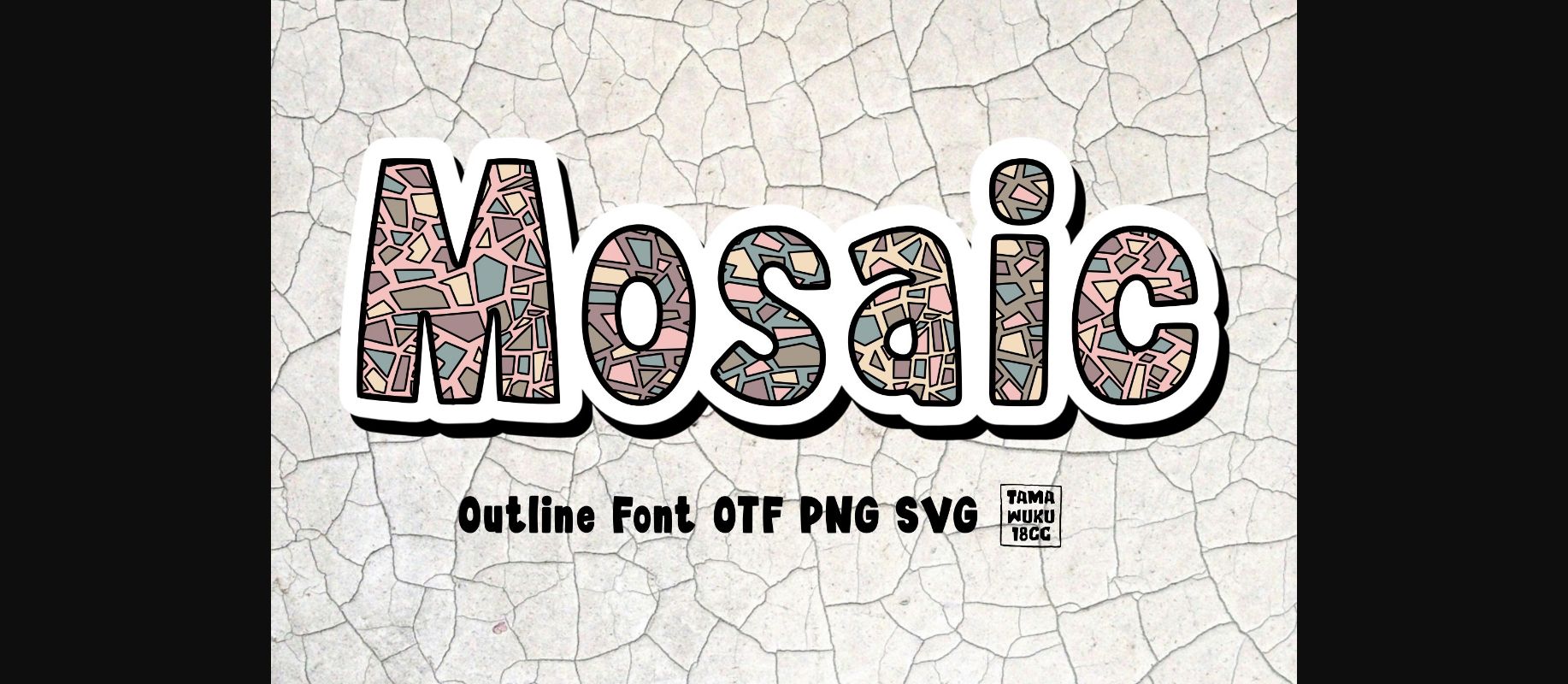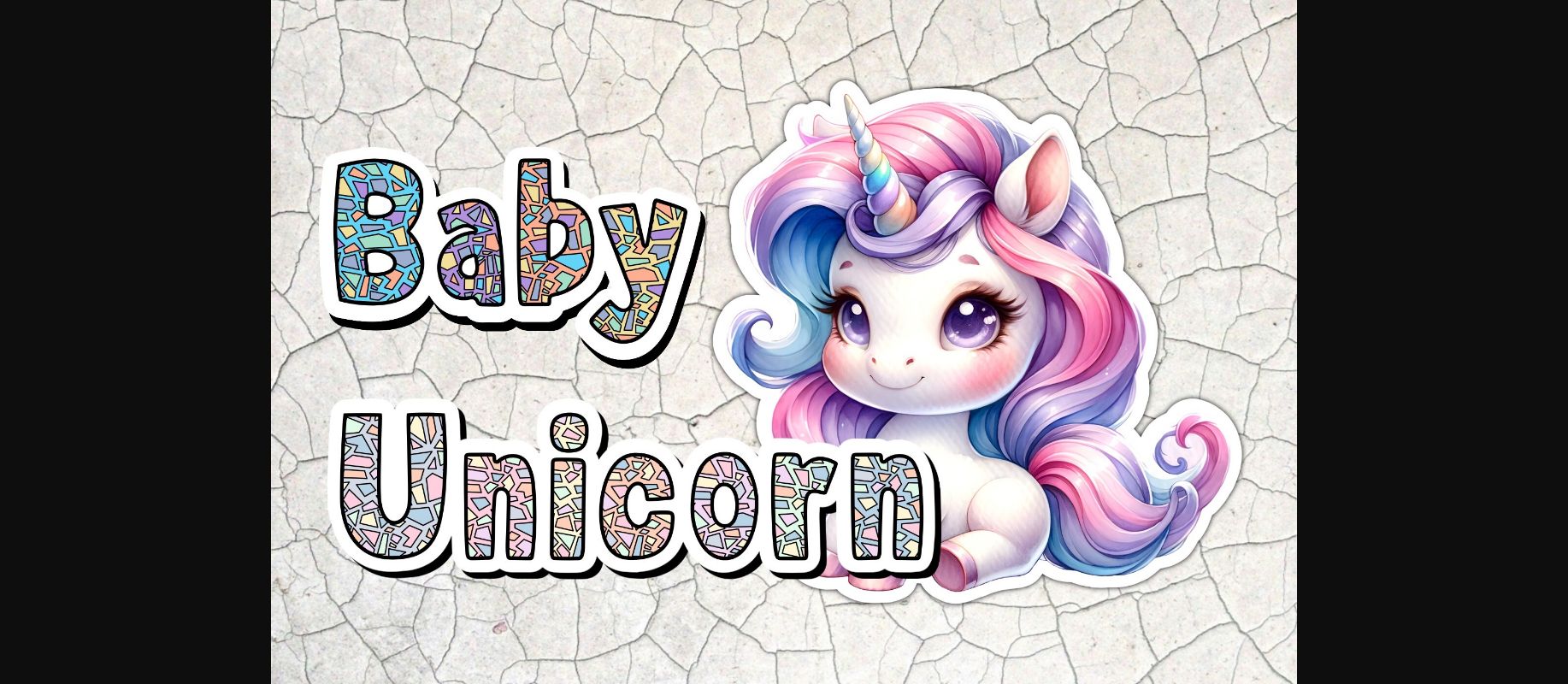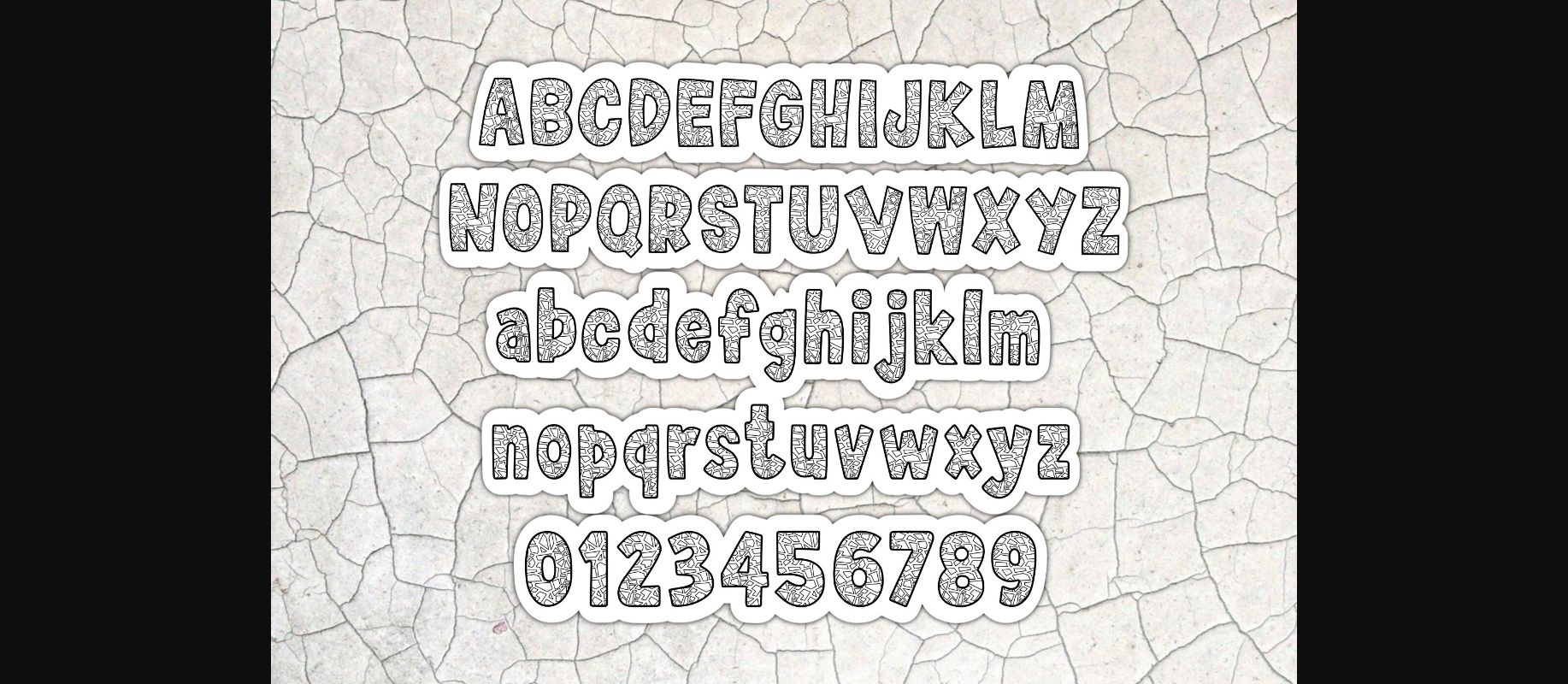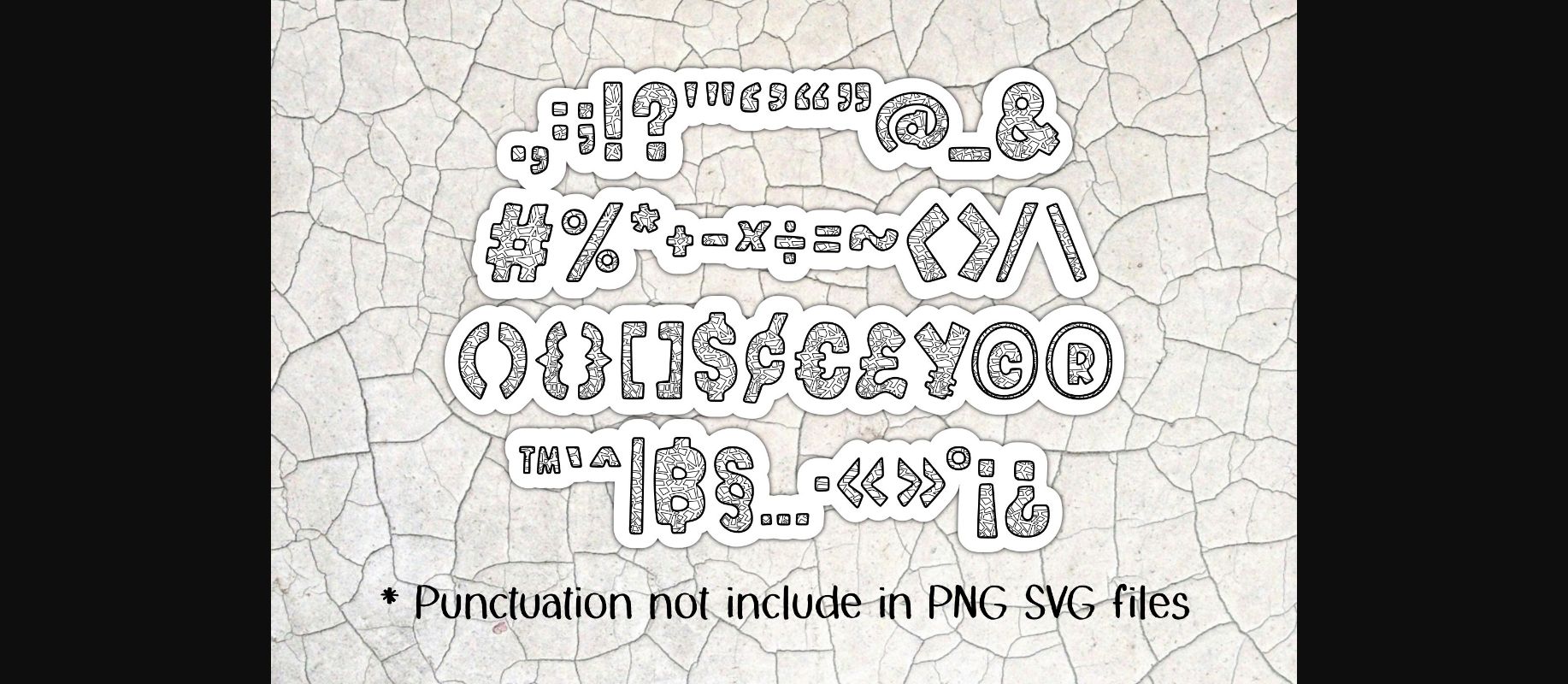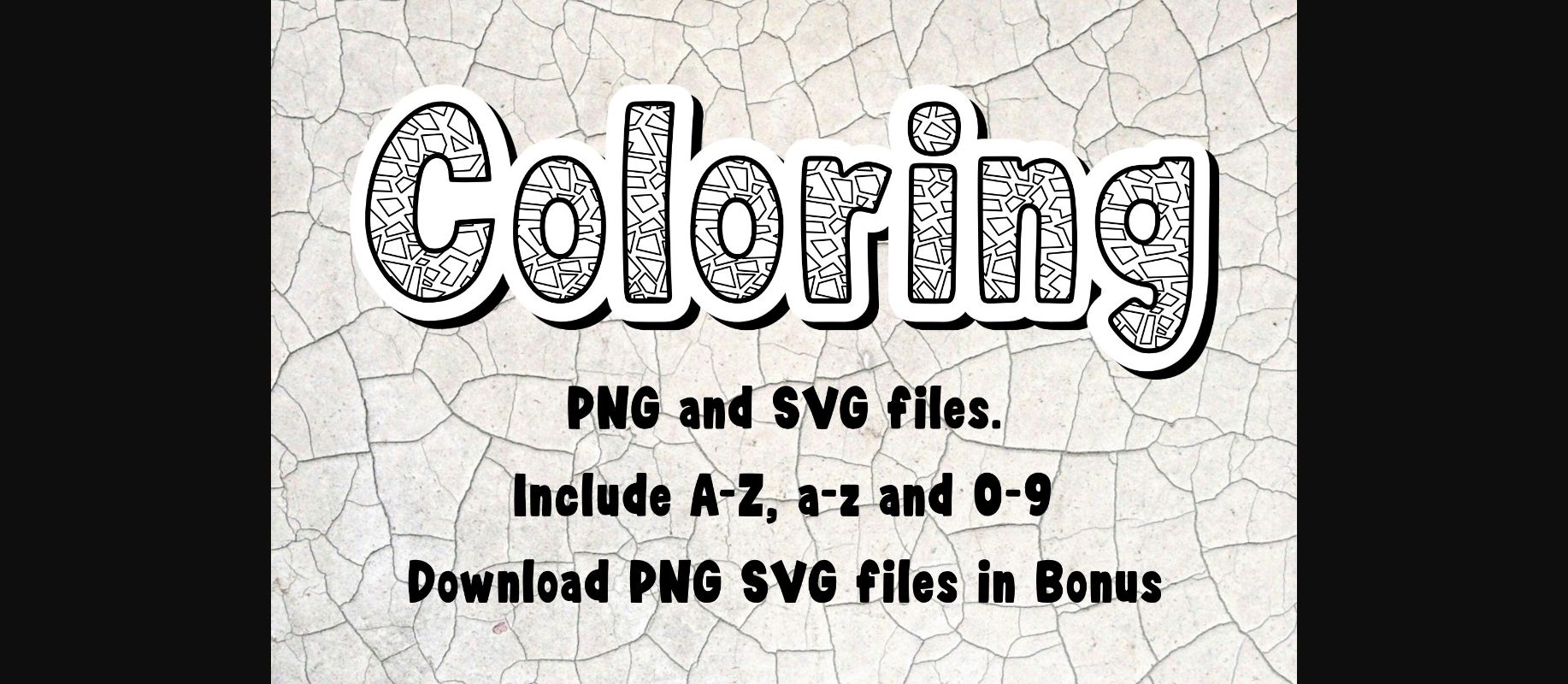
Mosaic is a cute and funny font. This font is perfect for a design that requires a fun accent. Is suitable for book covers, coloring, posters, packaging, merchandise, logotype, and much more.